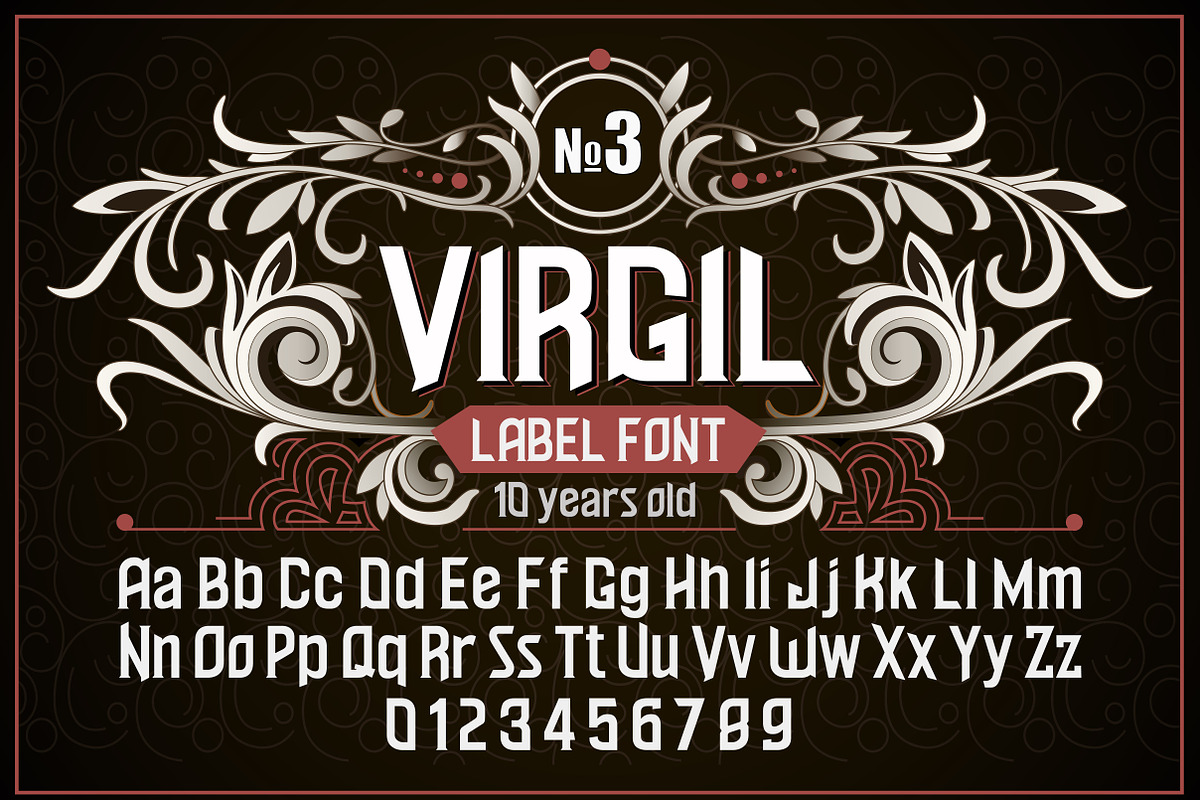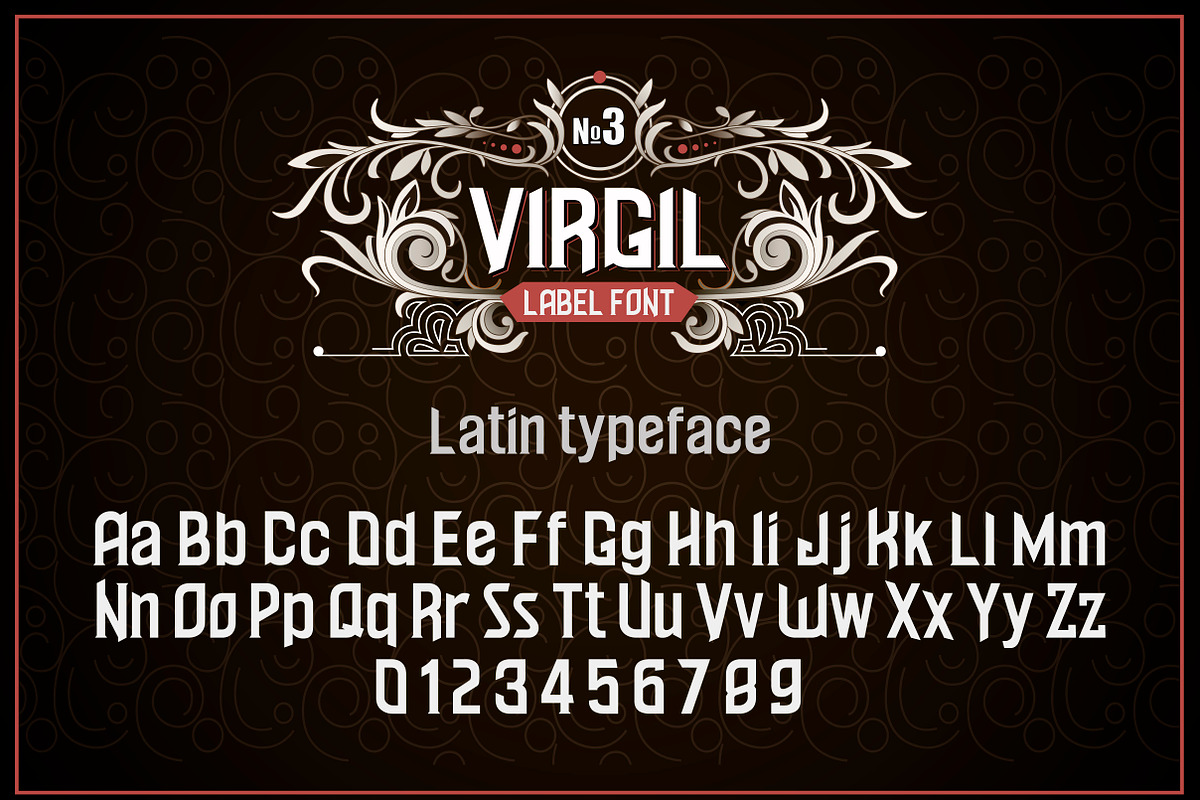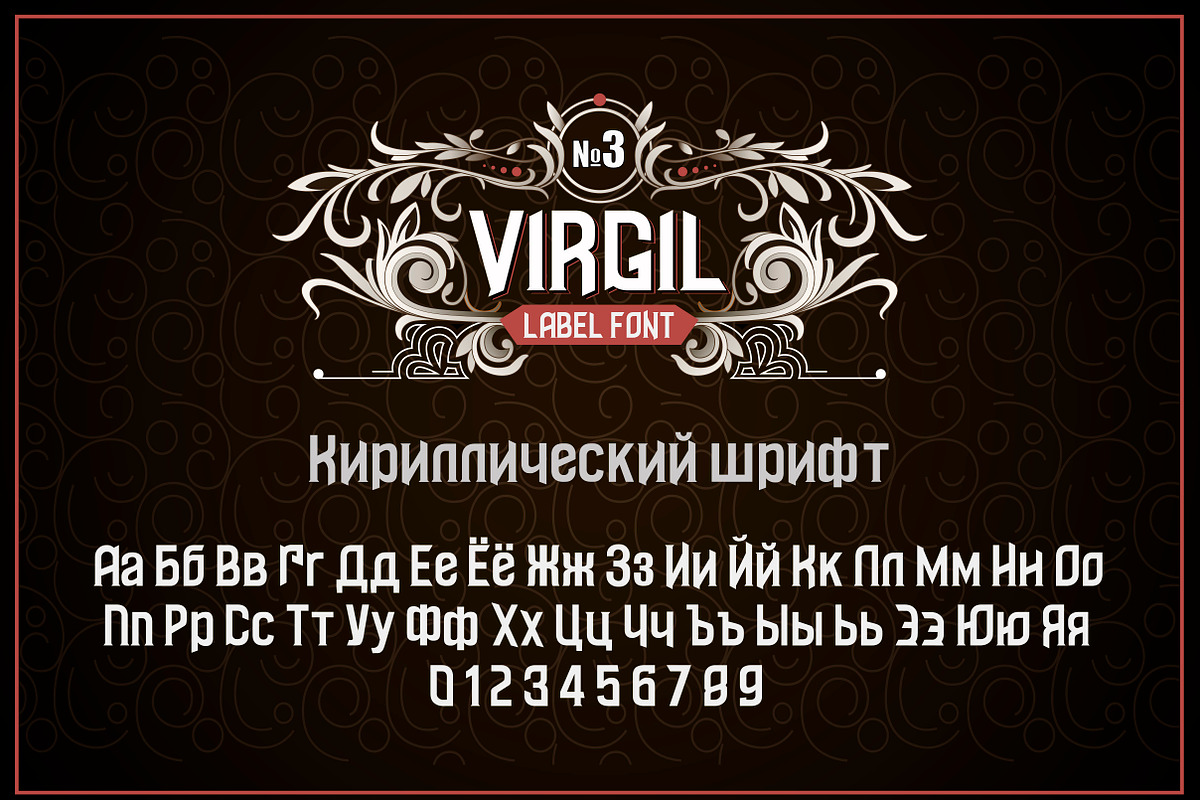
Vintage otf font "Virgil"
Vintage ttf and vector font, with ornament. Latin and cyrillic font, for decoration alcohol label, logotype and other production